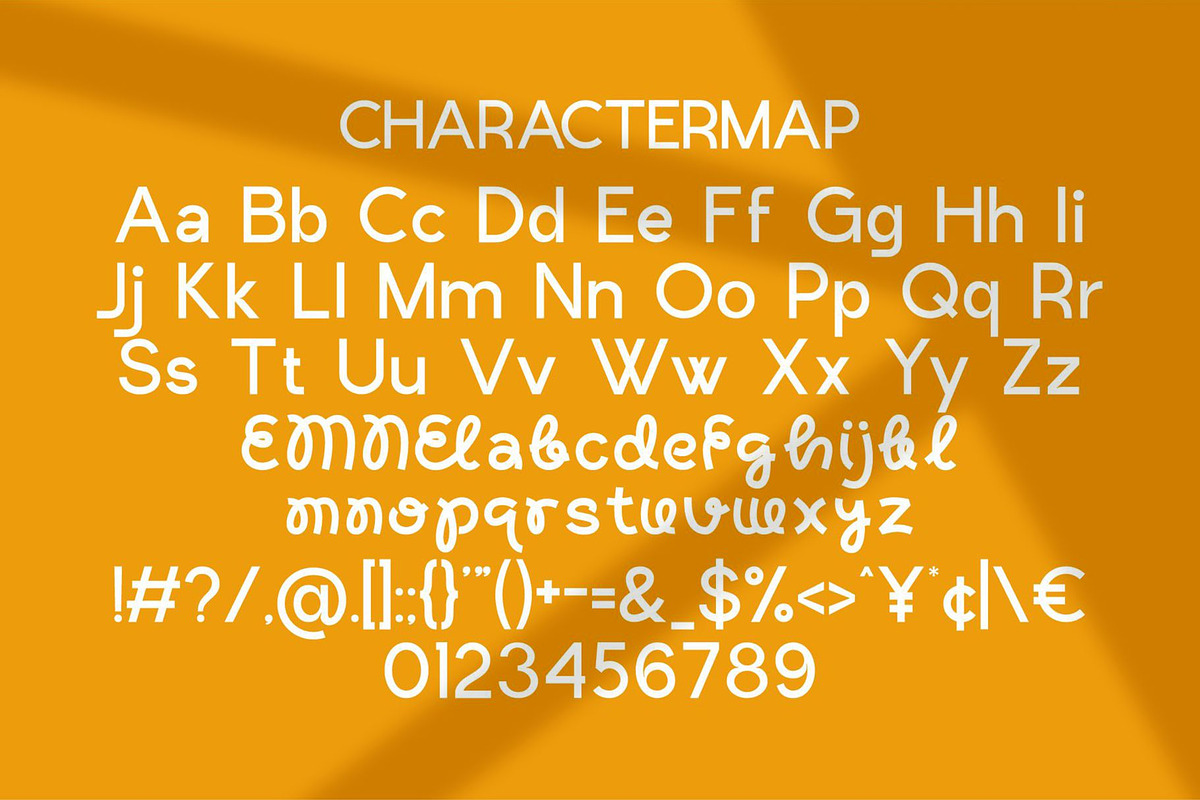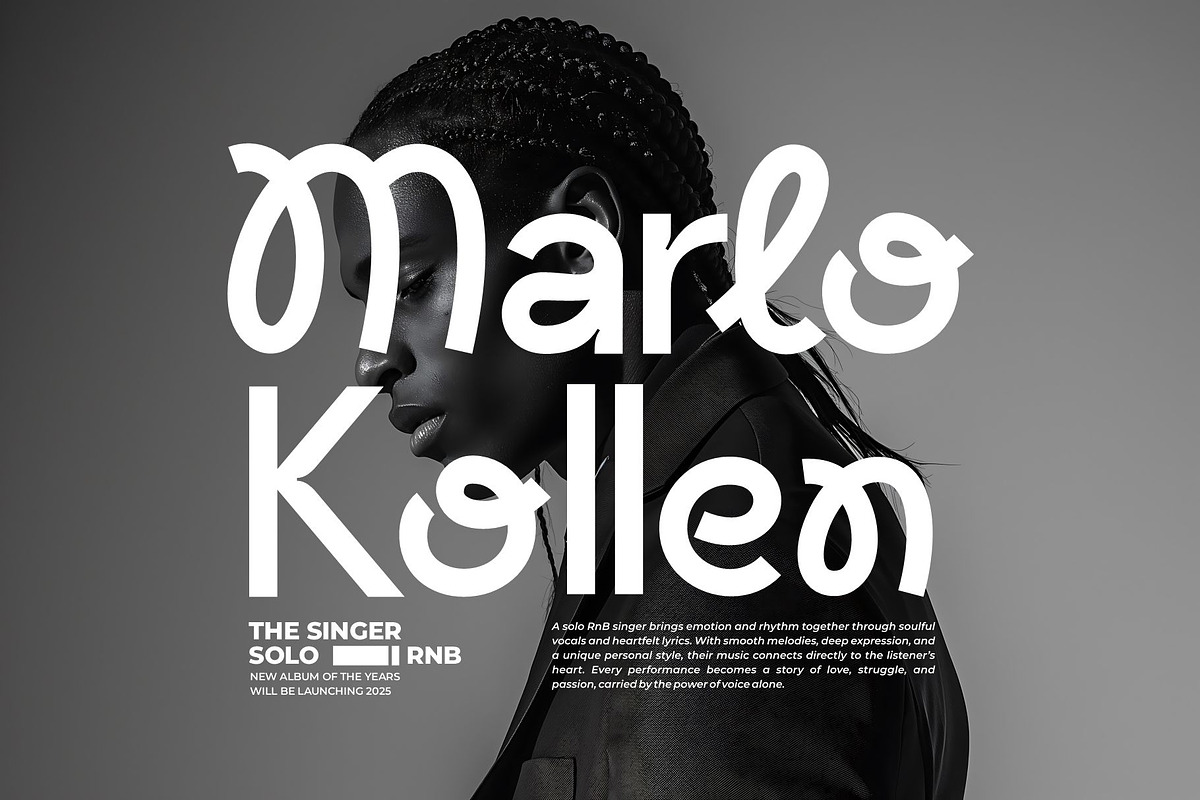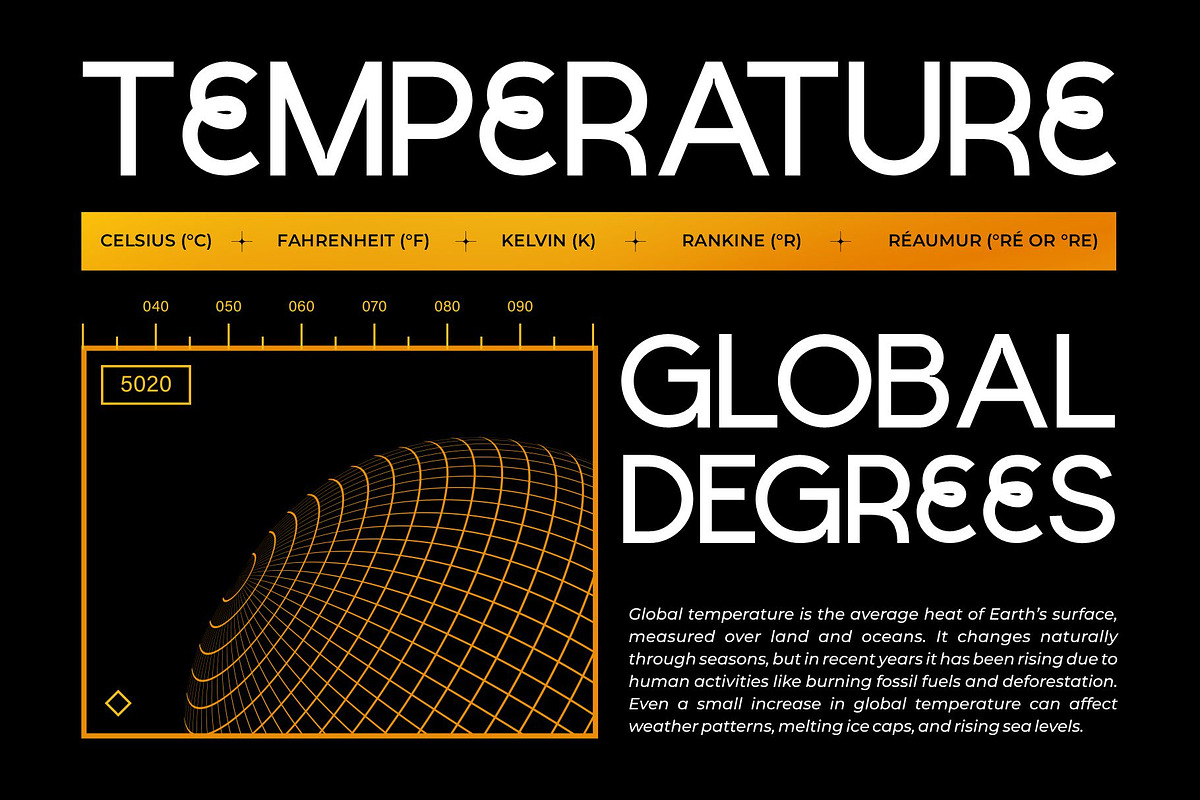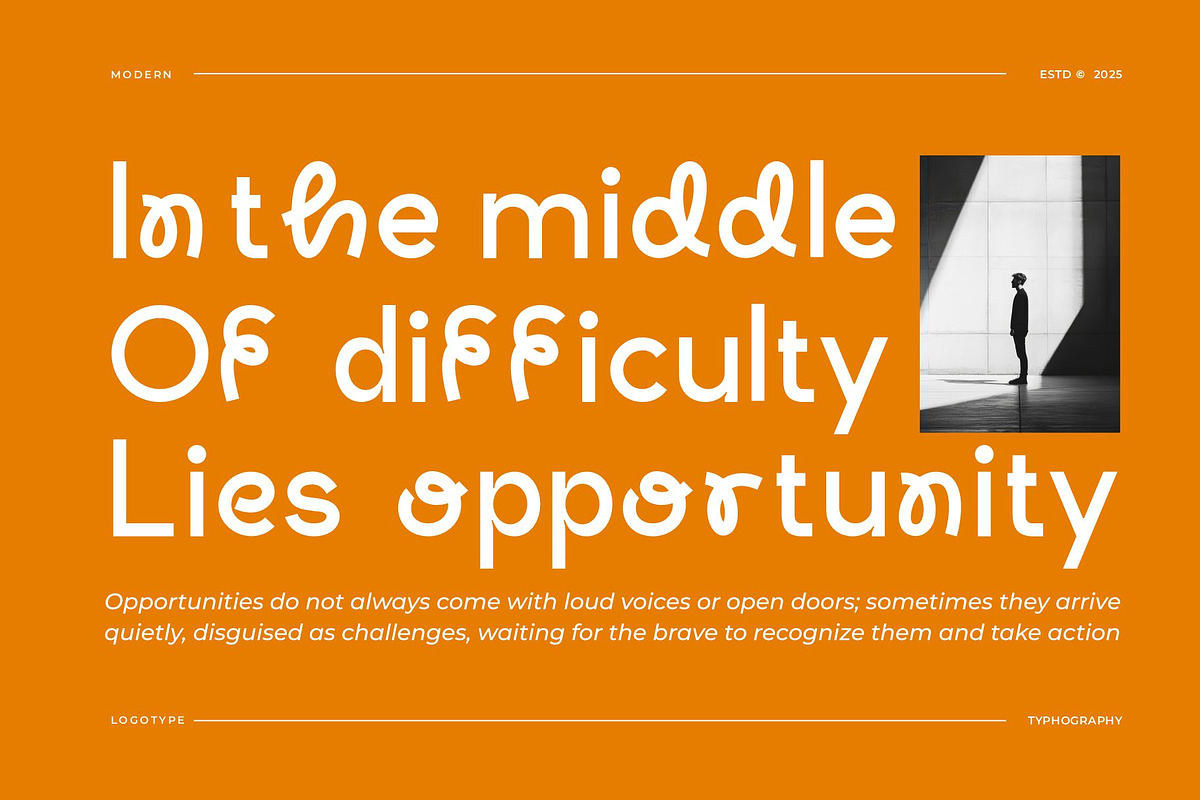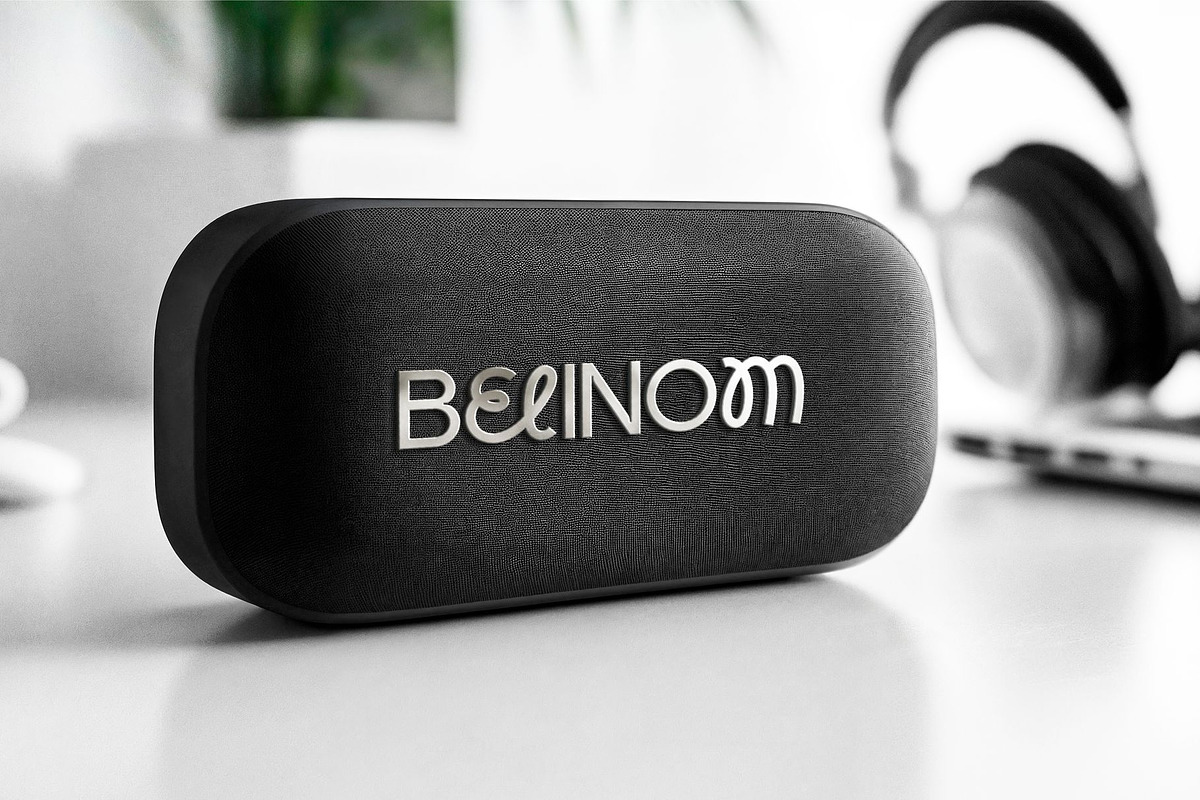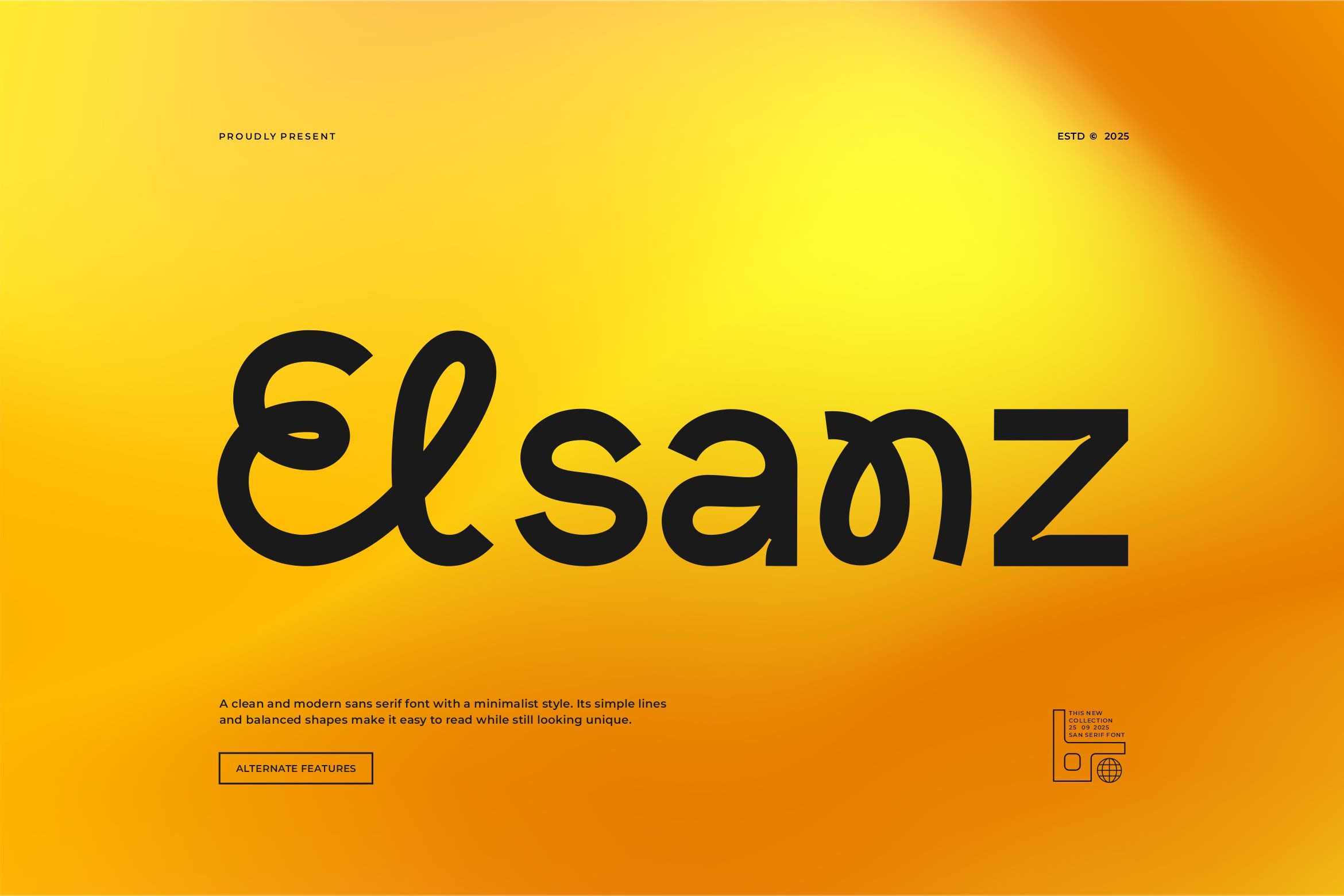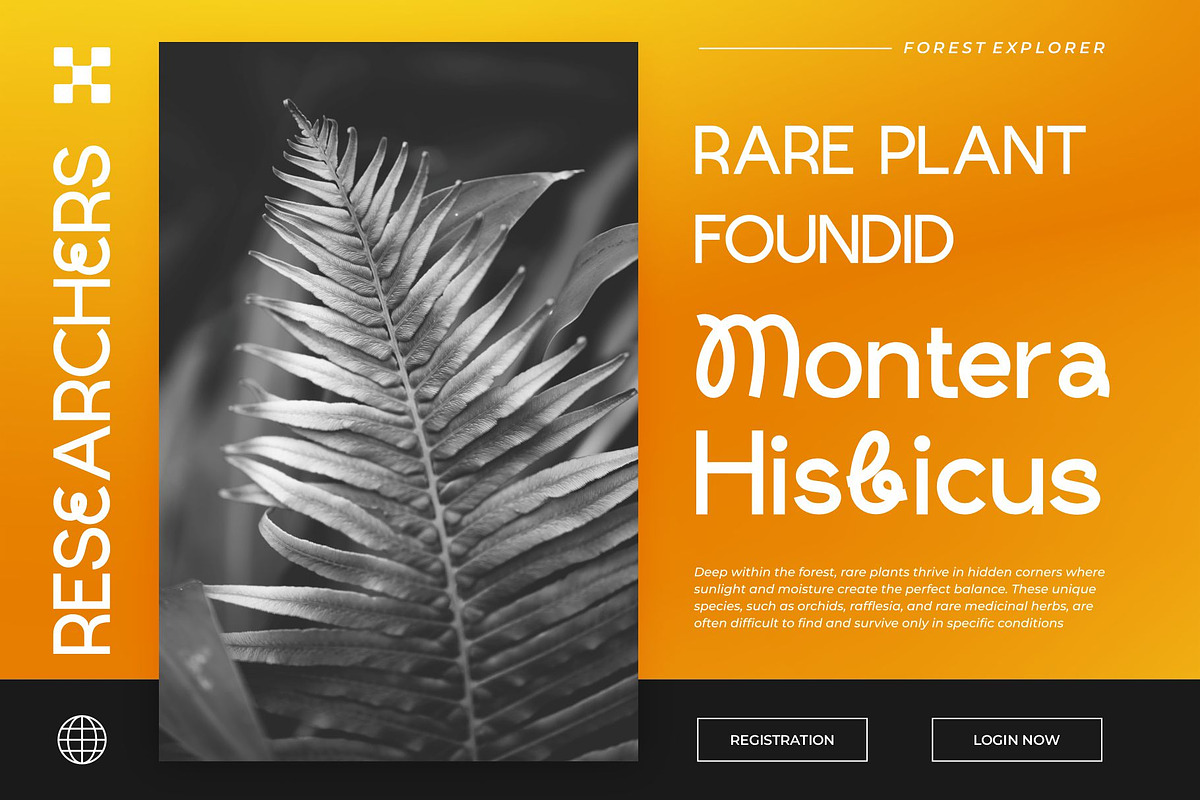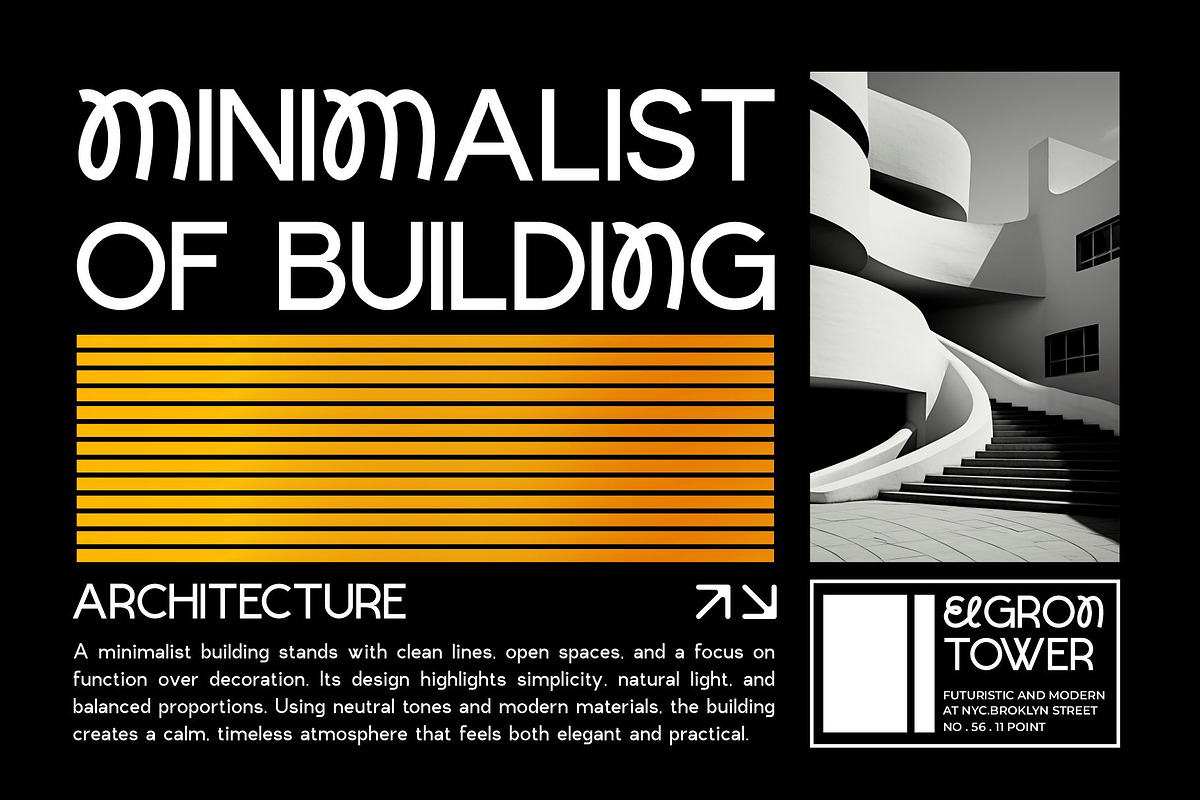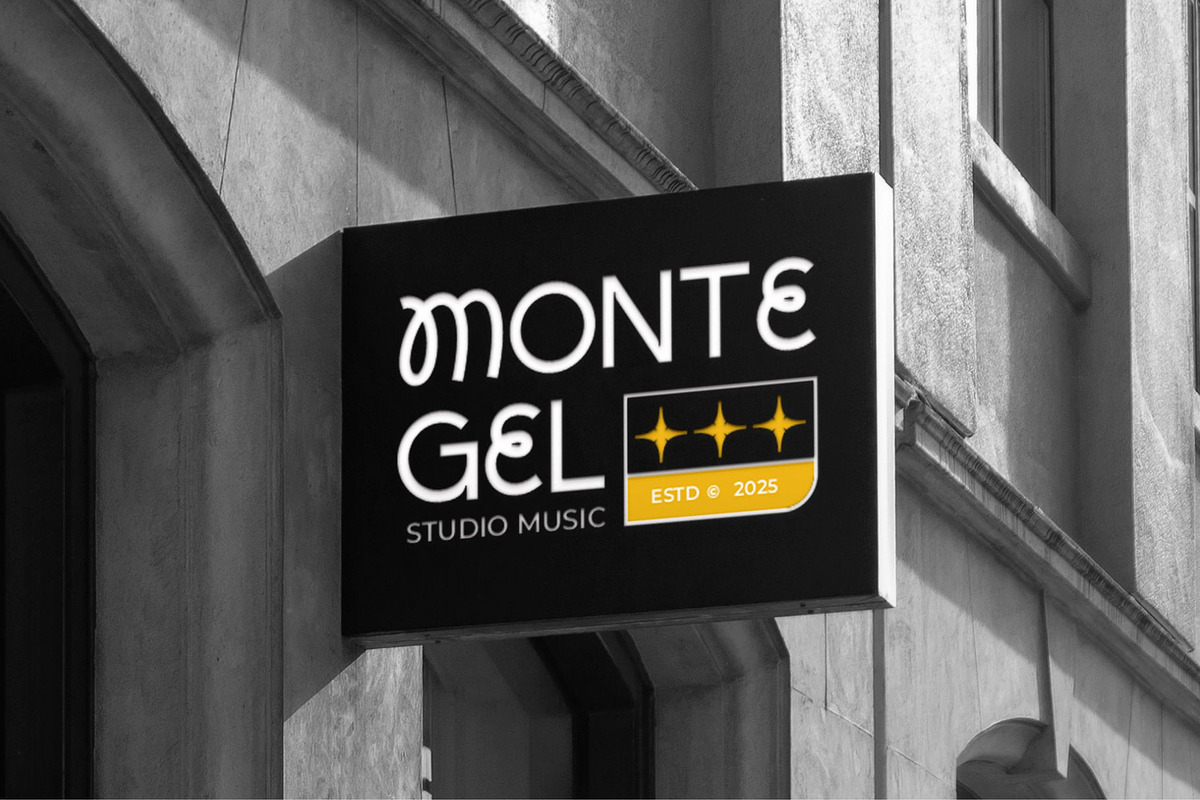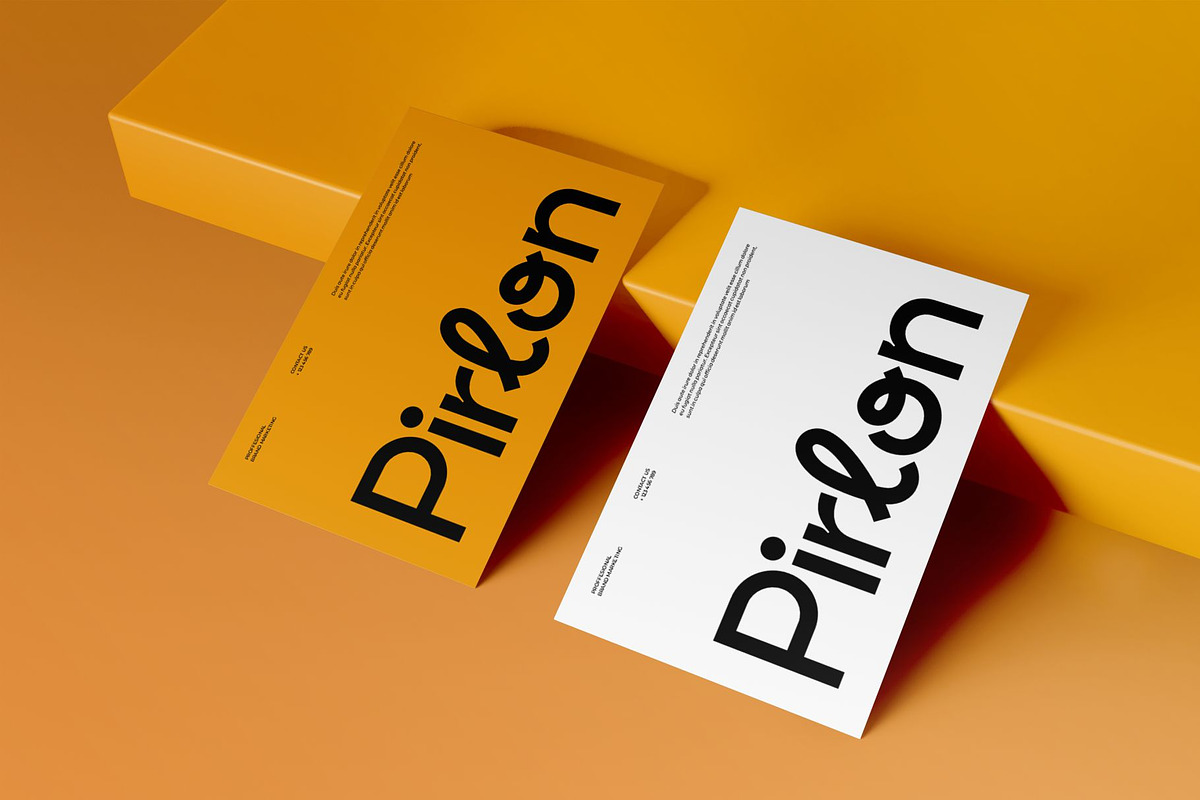
Elsanz || Modern Sans Serif Font
Elsanz Sans Serif is a modern and clean font type for all branding and logo designs. This modern and clean sans serif font has a beautiful character. This font is suitable for invitation card designs, cool logos, movie titles, movie names, business cards, book titles, brand names, and various other designs. Elsanz Sans Serif is a smooth sans serif font that exudes sophistication and the moment. Its stylish alternates make this font a perfect partner for any project.